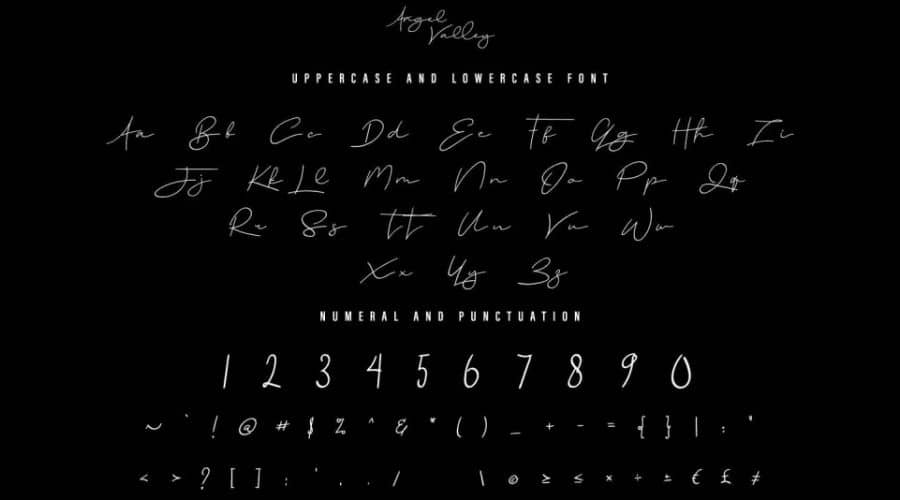
Angel Valley Handwritten Signature Font
Angel Valley Font is a one-of-a-kind handwritten signature script typeface with a natural pen look for name branding. This typeface offers a gorgeous character set that is correctly spaced and kerned. This Font’s theme style is exquisite, classic, sophisticated, thoughtful, and classic handwriting. Angel Valley Font is a font that you won’t find somewhere else. The Font is designed and updated by edricstudio on June 14, 2020. This typeface is available for personal use at no cost.
Angel Valley Font is ideal for a variety of applications such as branding, logo design, stationery, business cards, signs, flyers, and brochures. This typeface will work well in almost any industry: weddings, events, real estate, architects, legal firms, florists, gardening, makeup artists, travel, hotels, musicians, and so on.